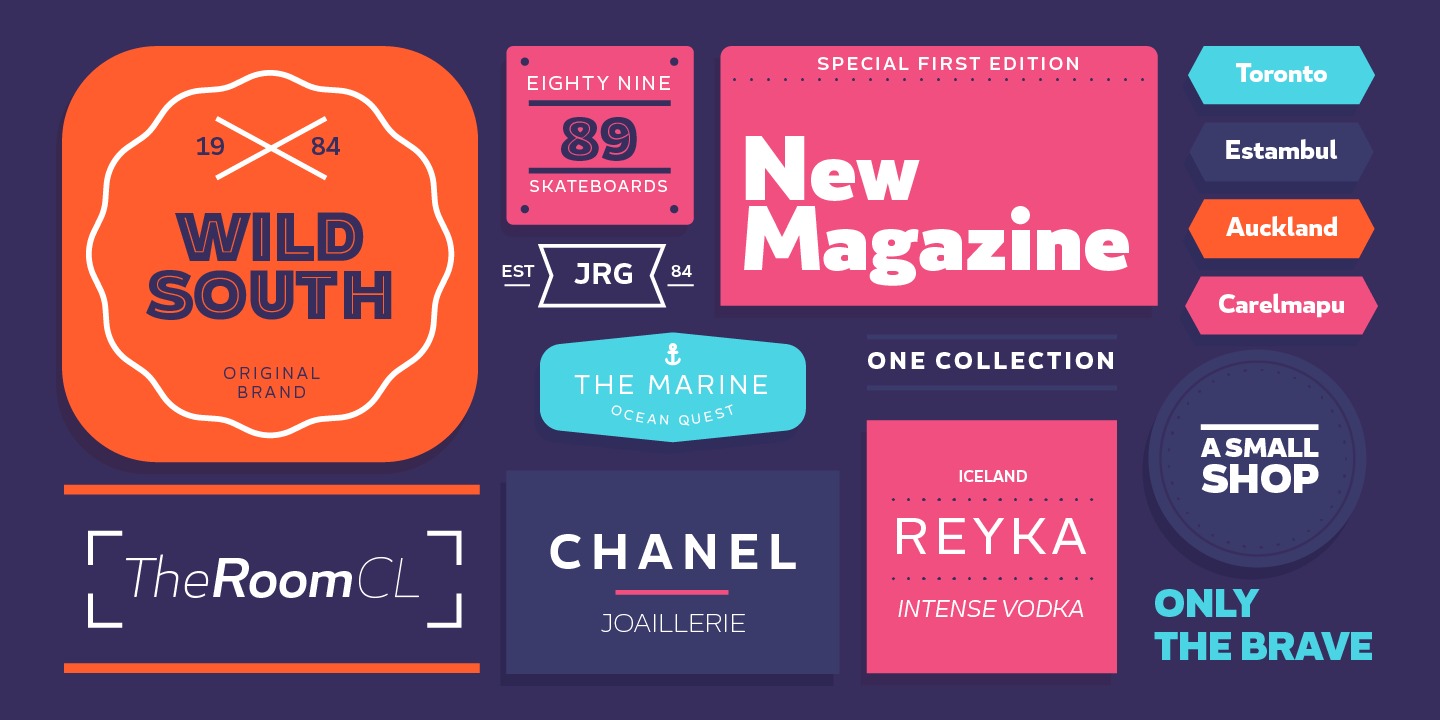
Blanc Font Family
Blanc Font Family is a flexible and reliable font created to fit multiple design needs, from branding and packaging to social media and editorial layouts. Blanc is a functional humanist sans typeface with a marked personality and great style that make it ideal for use in headlines. Blanc is an ode to neutrality: a geometric face characterised by low contrast between thick and thin strokes with calligraphic features that emphasise specific glyphs. Blanc comes with 8 weights and an inline version that make it well-suited for headings and subheadings, corporate designs, advertising, publishing, etc.